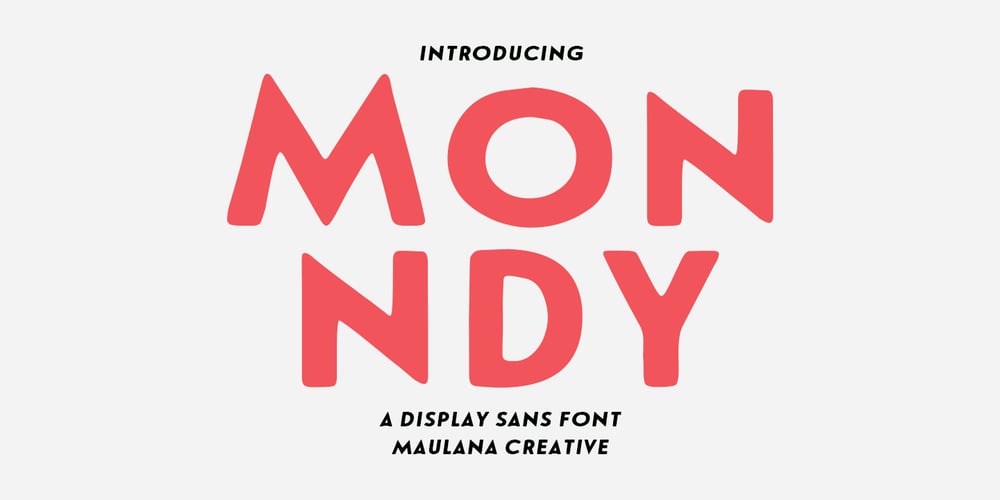
MC Monndy Font Family was designed by Gilang Maulana and published by Maulana Creative. MC Monndy contains 2 styles and family package options. Monndy is a rough stamp style fun sans serif font. With semi bold stroke and slant, fun character with a bit of ligatures and alternates. To give you an extra creative work. Monndy font support multilingual more than 100+ language. This font is good for logo design, Social media, Movie Titles, Books Titles, a short text even a long text letter and good for your secondary text font with script or serif. Make a stunning work with Monndy font. Cheers, Maulana Creative